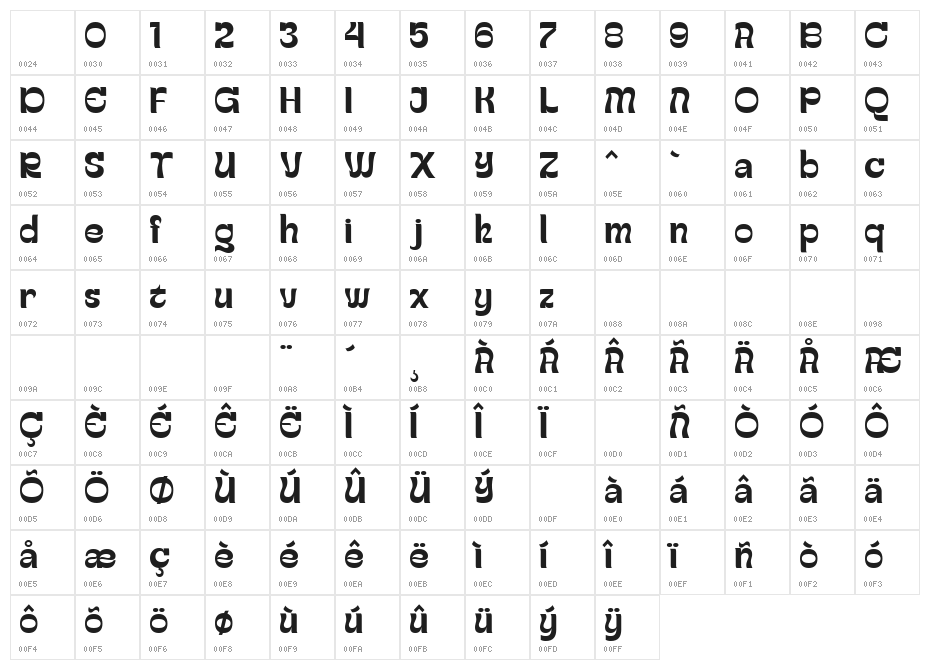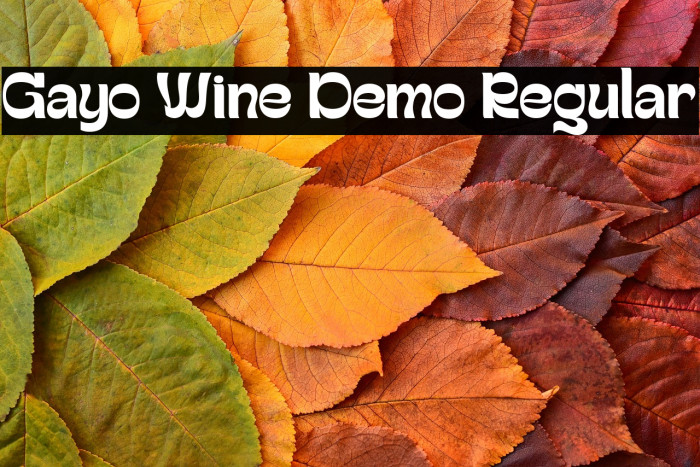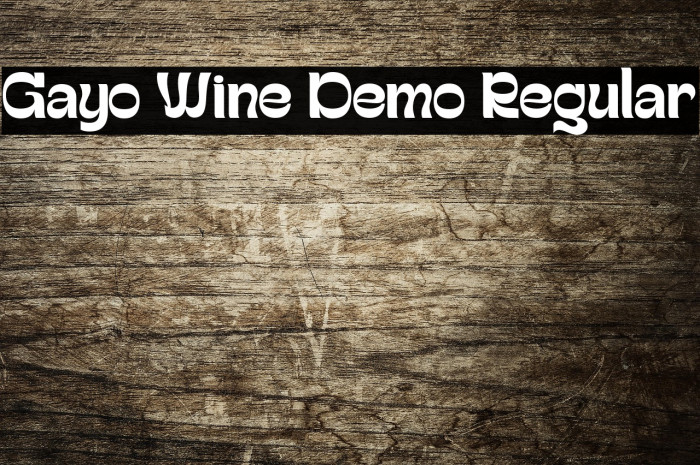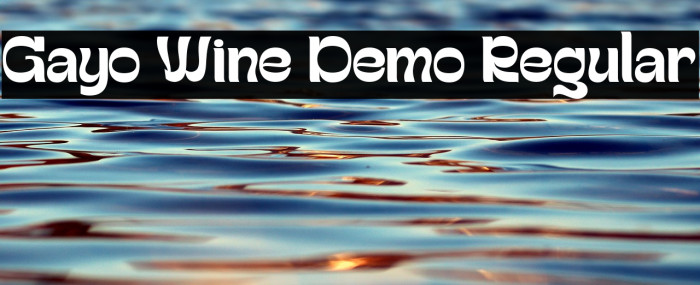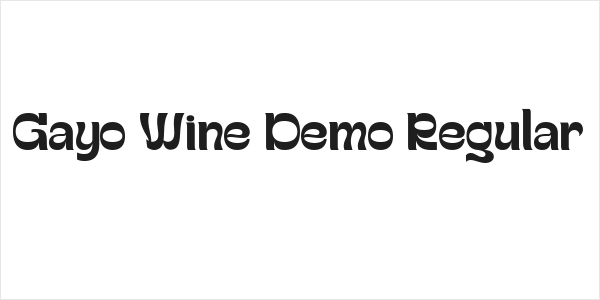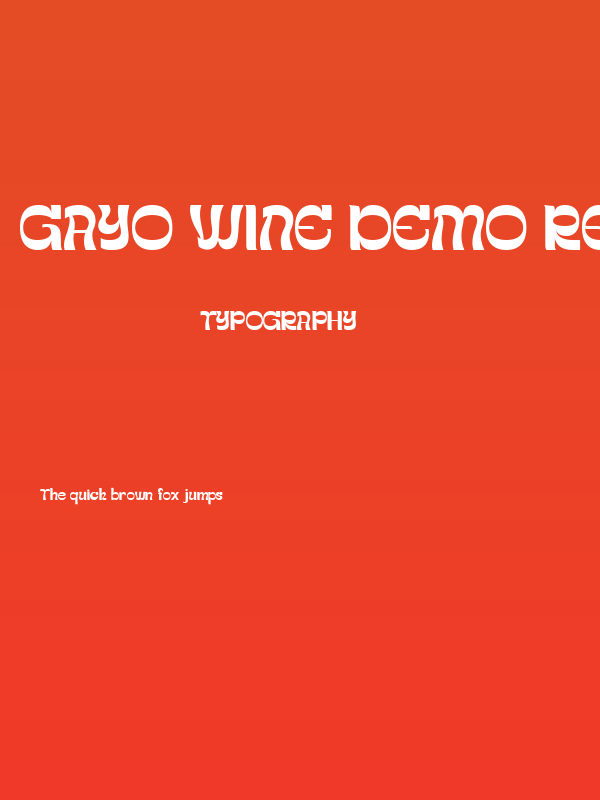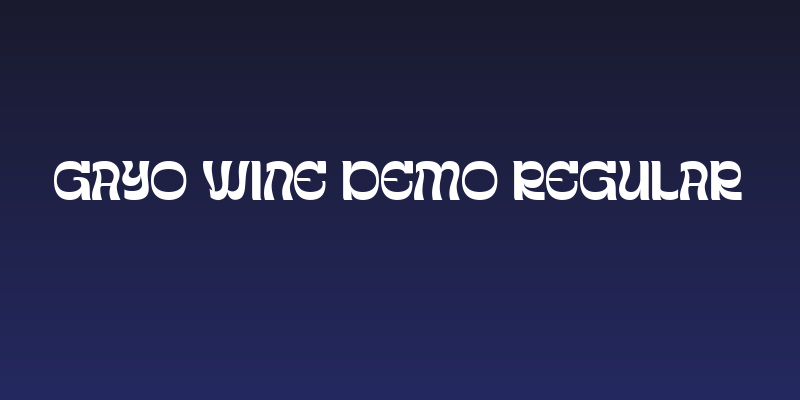
Gayo Wine Demo Regular Font
Gayo Wine Demo Regular Description
This font features a bold and dynamic style with a unique blend of geometric and organic shapes. The characters have a distinct, flowing quality with rounded edges and a playful, artistic flair. The uppercase letters exhibit a strong presence, while the lowercase letters maintain a consistent rhythm and balance. The numerals are equally bold, ensuring visibility and impact. The special characters are designed to complement the overall aesthetic, making this font versatile for various creative applications.
| Proposed Projects | Ideal for branding, poster design, album covers, and any project requiring a bold, artistic touch. |